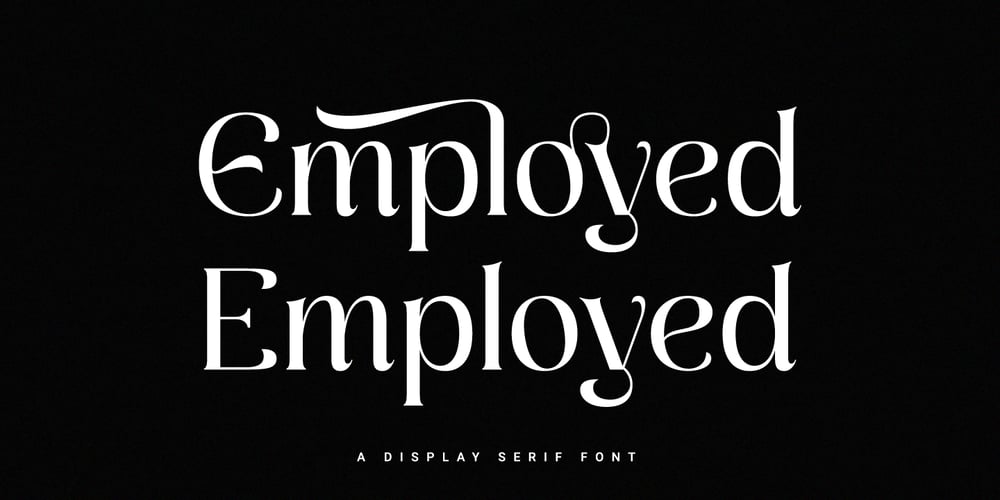
Employed
Employed font
Employed Font Family was designed by Prio Nurokhim Aji and published by Prioritype. Employed contains 1 styles and family package options. Presents a new typeface. Say hello to the “EMPLOYED” font. A serif font display with a modern and classic style, perfect for you to use in your projects such as branding, logos, or social media posts. A clean and attractive typeface with some awesome alternative character features. Features: Uppercase, Lowercase, Numeral, Punctuation, Multilingual, Ligatures, Alternates & PUA Encoded.Thanks!